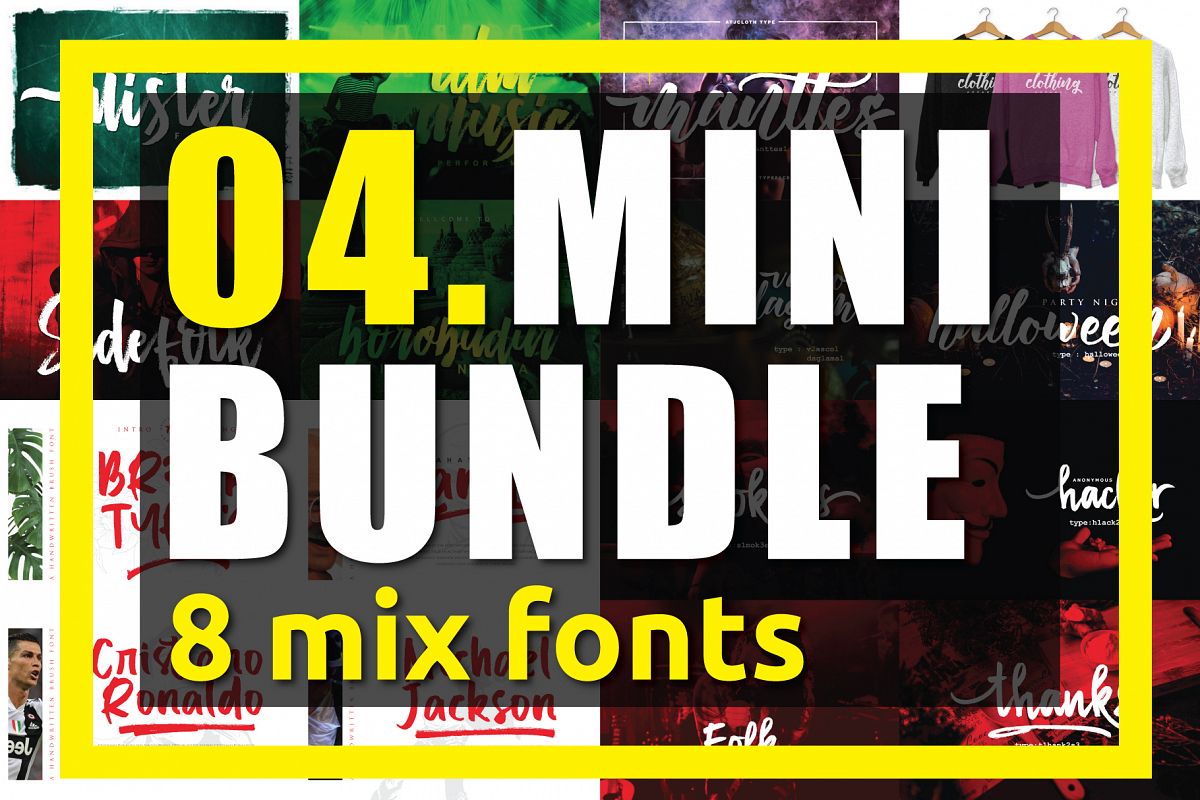
04. MINI BUNDLE - 8 mix fonts
Manksa Swash
Master Brush Swash
Follback Swash
Enforce Justice
Manttes
Follback
Master Brush
Brush Stroke
Break Types
Manksa
Mister Fast Itaic
Mister Fast
Enforce Justice
You can use this font them for pretty much everything like blog header, posters, wedding elements, t-shirt, apparel, cover books, business cards, greeting cards, branding, invitations and quotes and so on.